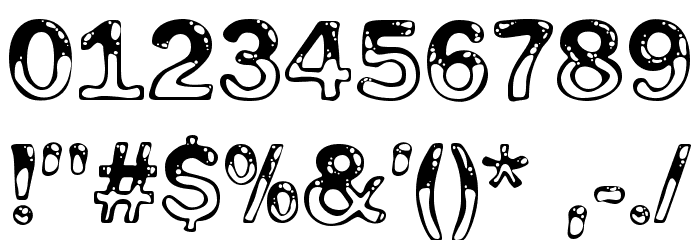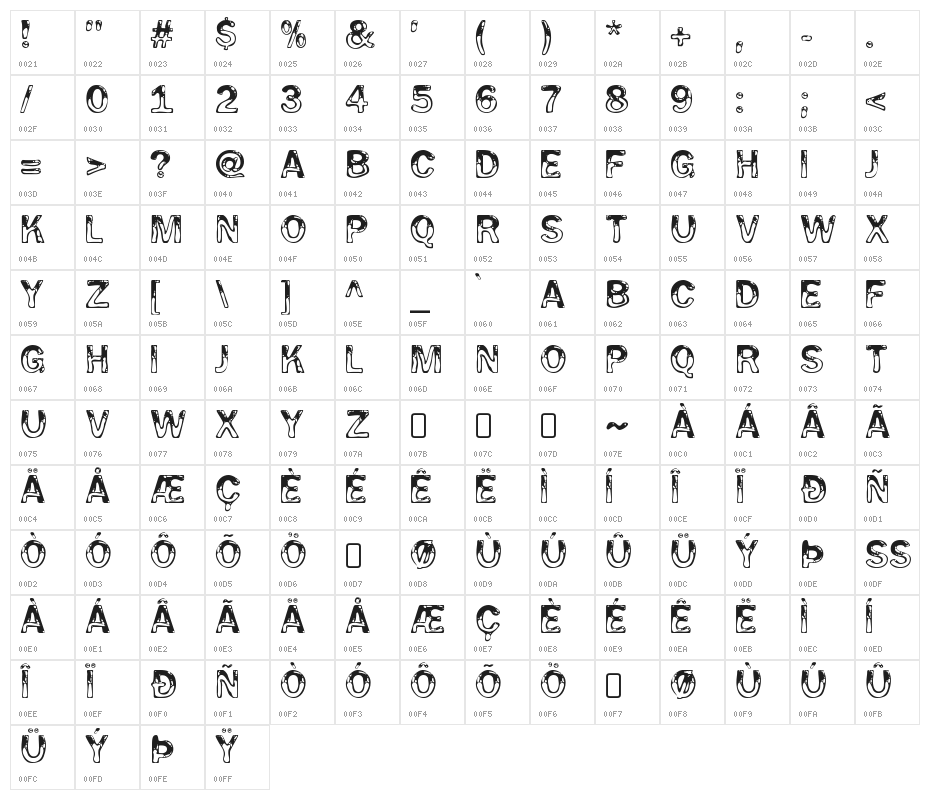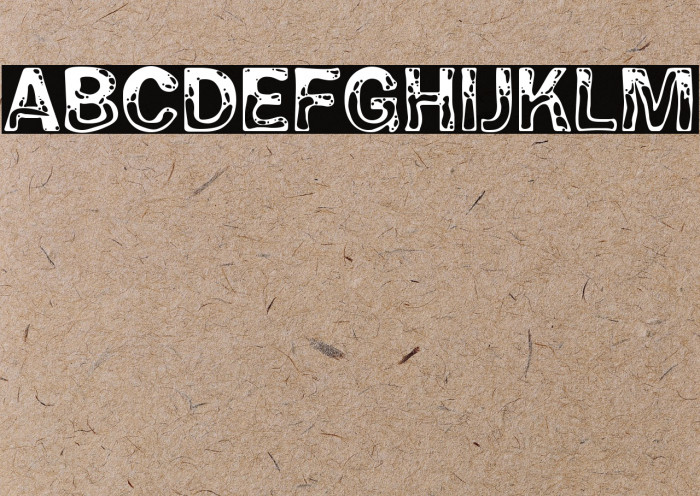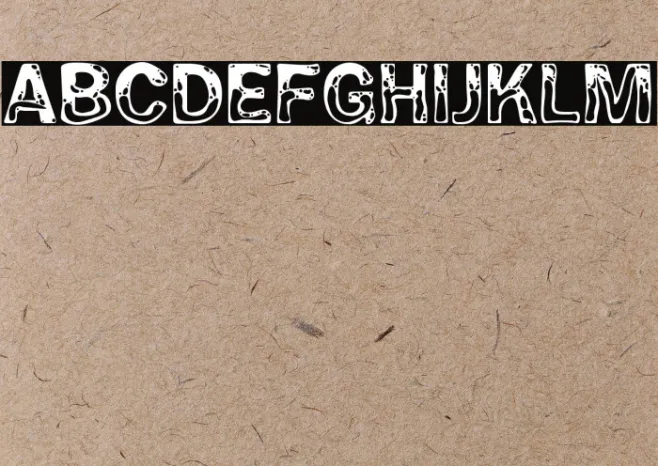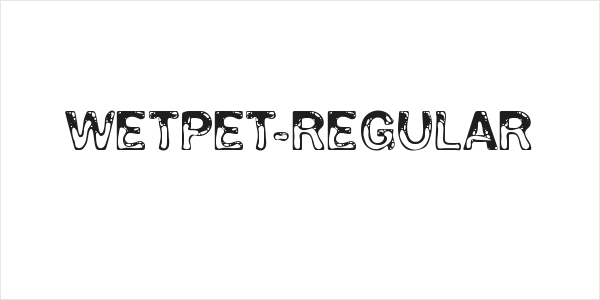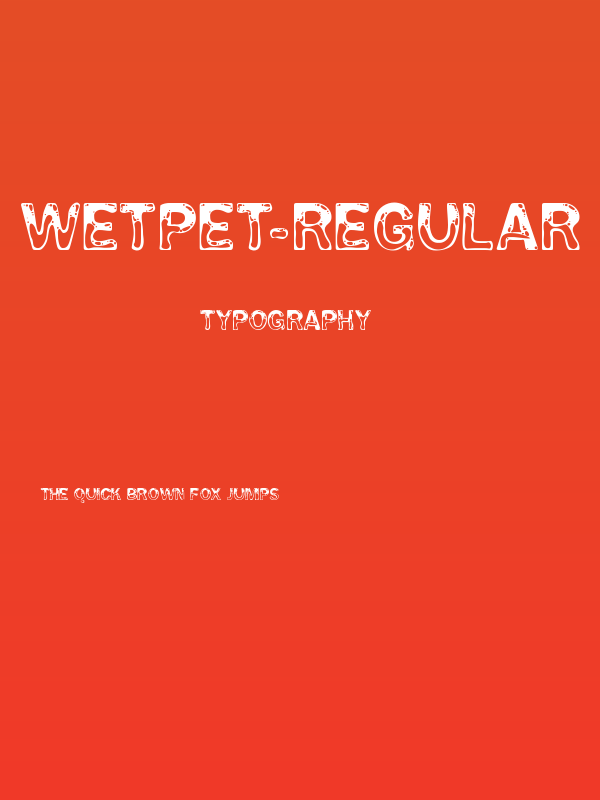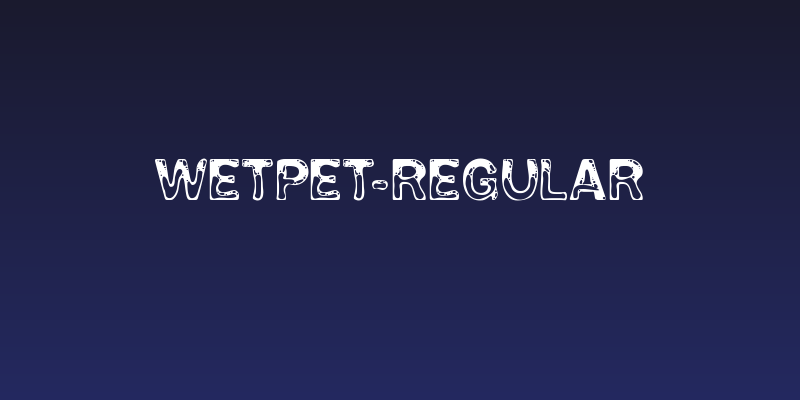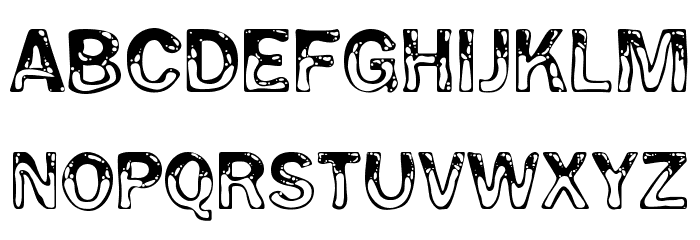
WetPet-Regular Font
WetPet-Regular Description
This font features a playful and whimsical design with a bubbly, liquid-like appearance. Each character is filled with irregular, blob-like shapes that give it a unique, fluid aesthetic. The uppercase and lowercase letters maintain a consistent style, with rounded edges and varying thicknesses that create a dynamic visual effect. The numbers and special characters follow the same playful theme, making the font suitable for creative and informal applications. Its distinctive style makes it stand out, while still maintaining readability.